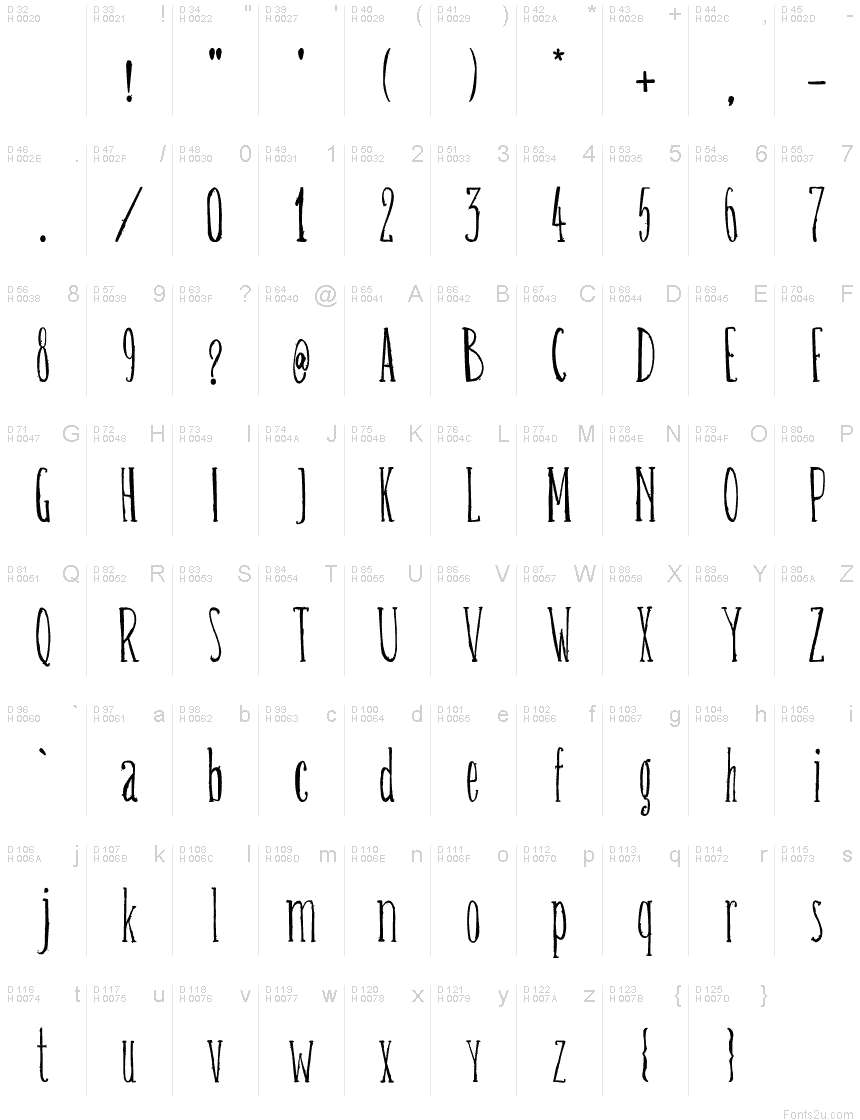
Belisa plumilla manual
Belisa Plumilla Manual font is a free handwritten typeface that feels like letters scratched onto old paper with a slightly dry, inky nib. Tall, slender forms and subtle wobble in each stroke give it a literary, slightly mysterious mood—somewhere between a poet’s notebook and an antique letter. The textured edges keep it warm and human, so it never looks sterile or over-polished.
Using Belisa Plumilla Manual, your titles and short texts gain a distinctive, story-rich voice that stands out instantly. This free font works beautifully for book covers, poetry prints, invitations, boutique branding, labels, and moody social graphics. Keep it at larger sizes so the grainy detail really shows, and pair it with a clean, light sans serif for body copy to let its hand-drawn character breathe.